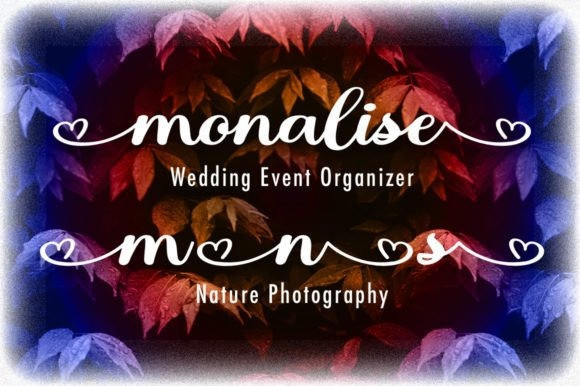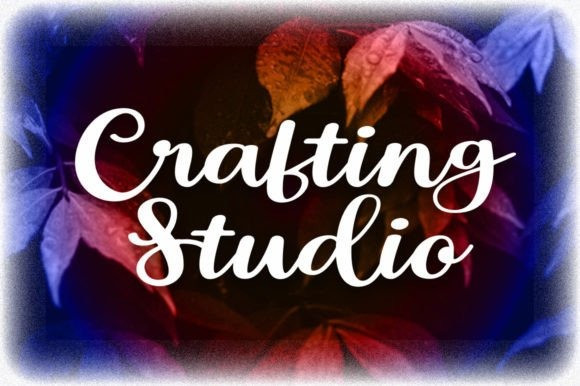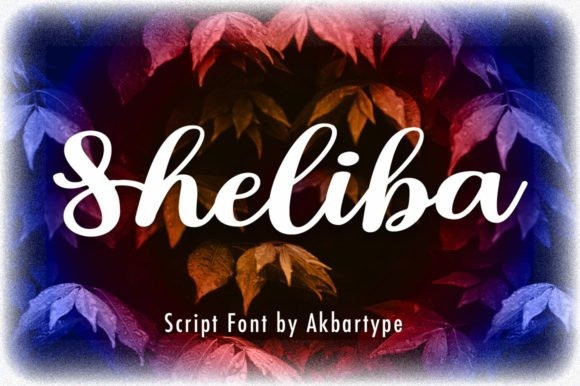
Sheliba Font
Sheliba Script Font is a modern script bold font with an authentic touch. This includes OpenType features with PUA encoded such as alternatives, swash and ligatures. This font is perfectly made to be applied especially in logos, and various other formal forms such as invitations or any type of advertising purpose.